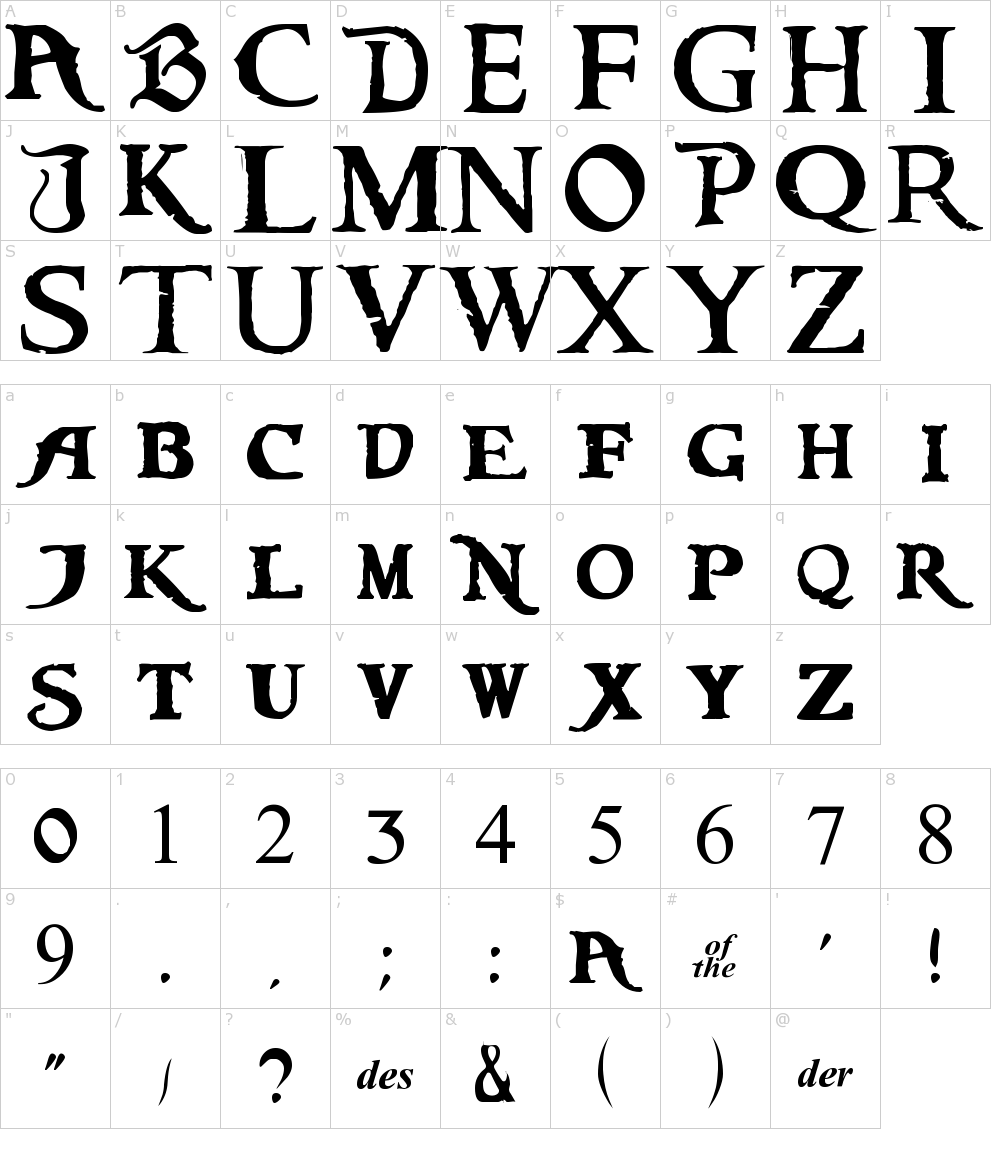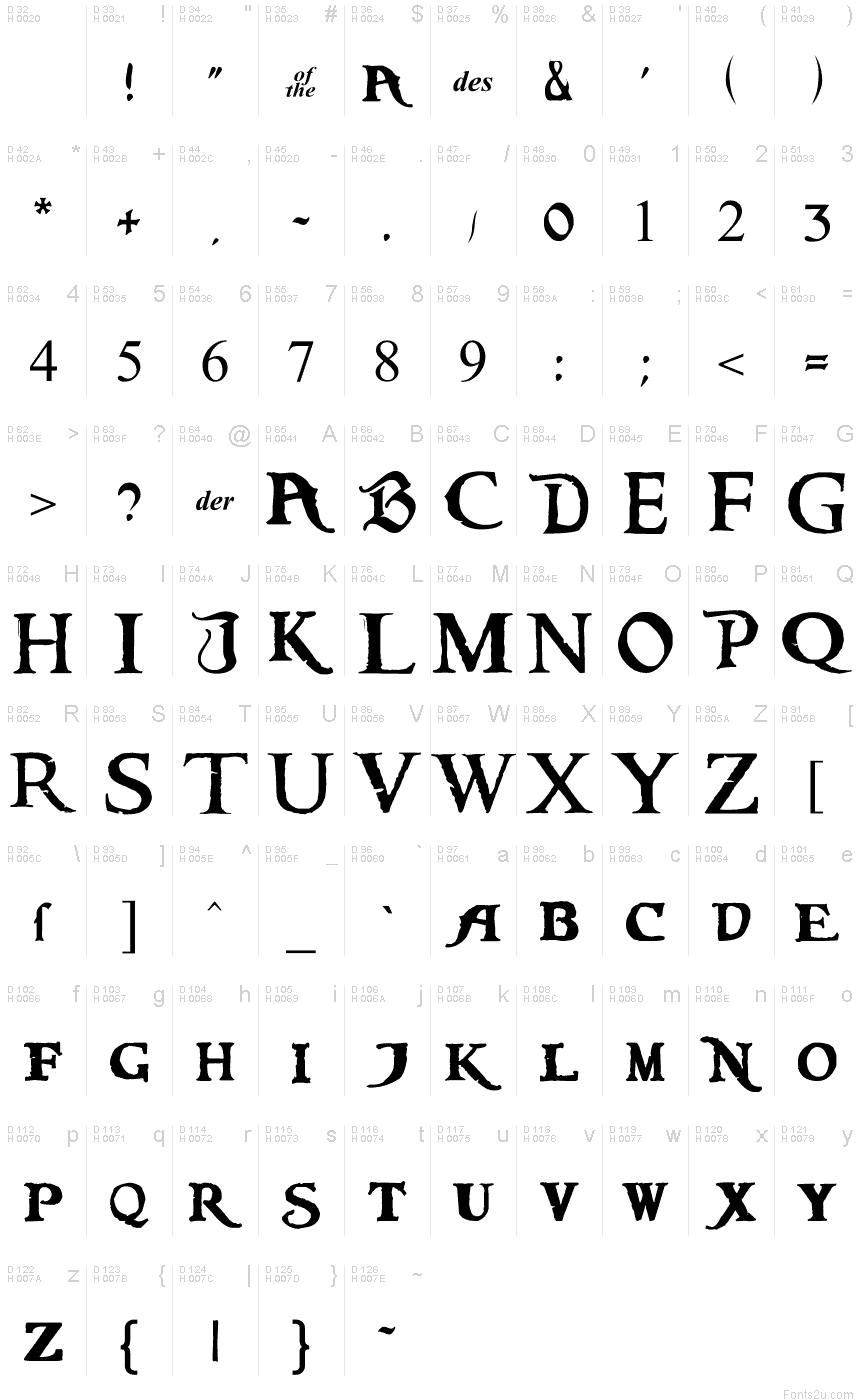
Click to find the best 6 free fonts in the caribbean style. I'm glad to introduce my new vintage look label typeface named caribbean rum. This typeface includes six styles and alternates characters, for sample look at second preview.
Pirates Of The Caribbean Is A Series Of American Adventure Fantasy Films, Which Were Based On The Pirates Of The Caribbean Ride At Disney Theme Parks, Where People Can Ride On.
The font subfamily is regular. Click to find the best 6 free fonts in the caribbean style. I'm glad to introduce my new vintage look label typeface named caribbean rum.